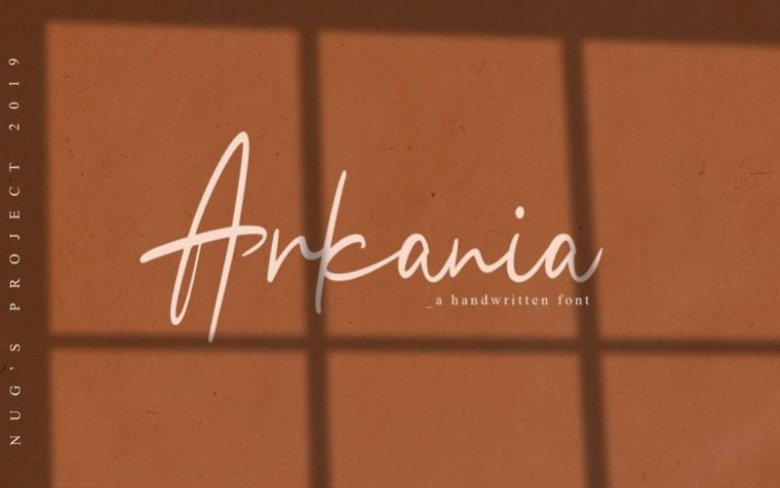
Arkania Script Font
The Arkania is a striking handwritten font. It has natural curves and is perfect for adding a
personal touch to your branding, watermarks, logos, and much more!